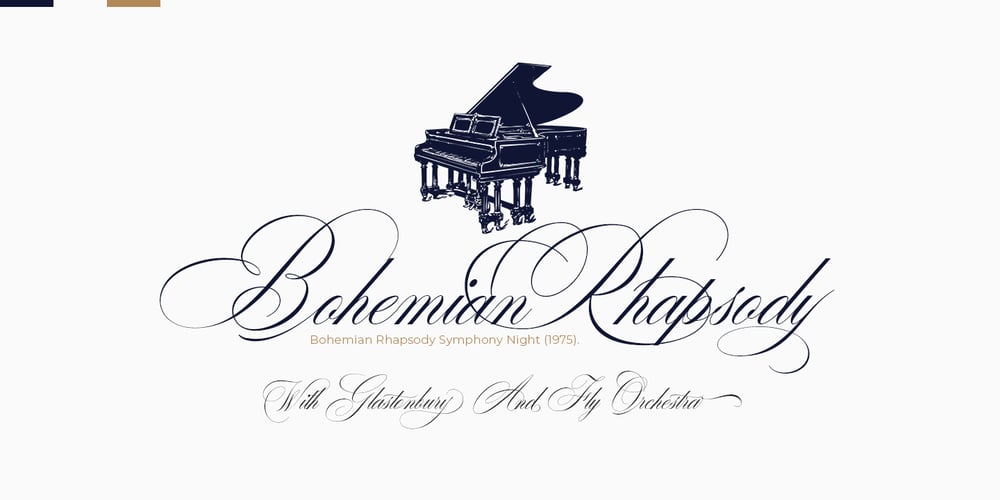
Desirable Calligraphy Font Family was designed by Sukjana Almunandar and published by Alcode. Desirable Calligraphy contains 1 styles and family package options. The Desirable calligraphy is a font with a classic style and a touch of elegance, inspired by the handwriting of Italian women and ancient manuscripts. Carefully designed to work together in harmony that makes it very suitable for wedding media, book covers, greeting cards, logos, branding, business cards and certificates, even for any design work that requires a classic, formal or luxurious touch. Try Desirable Calligraphy, enjoy the richness of OpenType features and let her fun and elegant excitement make you happy and enhance your creativity! You can use this font very easily. Multiligual support and special ligatures Your download will include OTF & TTF format files. If you do not have programs that support OpenType features like Adobe Illustrator and CorelDraw X Versions, you can access all alternative flying machines using Font Book (Mac) or Character Map (Windows).